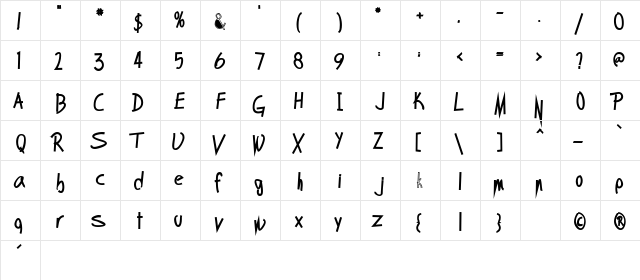
ScobeyScriptSSK Bold
Design Context for ScobeyScriptSSK Typeface
ScobeyScriptSSK flows with the natural rhythm of handwritten lettering, making it ideal for designs that call for warmth and personal expression. Its bold stroke weight gives it real presence on the page.
Font Pairing: Combine ScobeyScriptSSK with a simple geometric sans for maximum contrast — the tension between flowing curves and clean structure is a classic typographic pairing.
Pro Tip: Use ScobeyScriptSSK for short runs of text — names, titles, or taglines. Extended body copy in script faces tires the eye quickly.